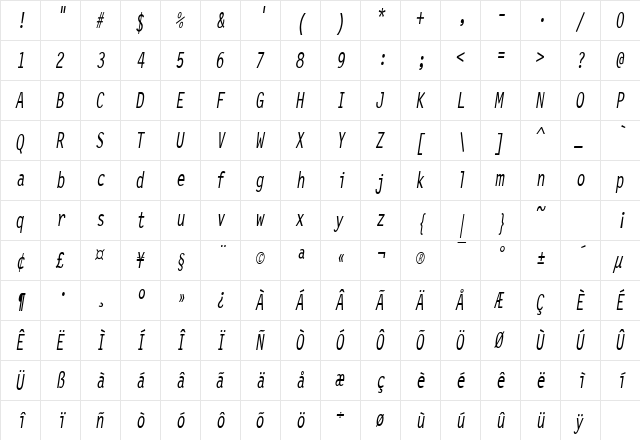
LetterGothicCondensed Slanted Font Preview
Design Context for LetterGothicCondensed Typeface
LetterGothicCondensed takes a clean, functional approach — its unadorned letterforms prioritise legibility and work reliably across screen and print environments. Its italic angle brings a sense of urgency and motion to the letterforms. Its narrow stance lets it pack a punch even in space-constrained designs.
Font Pairing: Works well alongside a characterful serif or display font that can carry the expressive load while LetterGothicCondensed handles the functional copy.
Pro Tip: Use LetterGothicCondensed tightly set in headlines and banners — its condensed proportions make it ideal for maximum impact in minimum horizontal space.